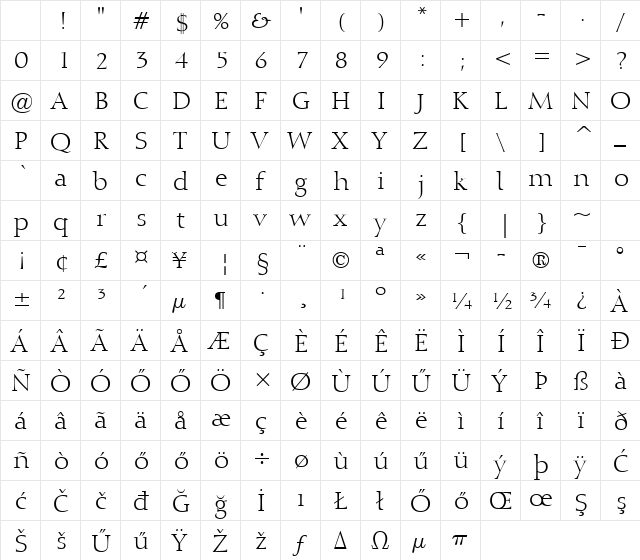
Complete Huni_Calla Regular glyph index. Displaying only characters natively supported by Huni_Calla Regular font.
Huni_Calla is a composed and adaptable typeface that performs quietly and consistently across a wide range of design contexts.